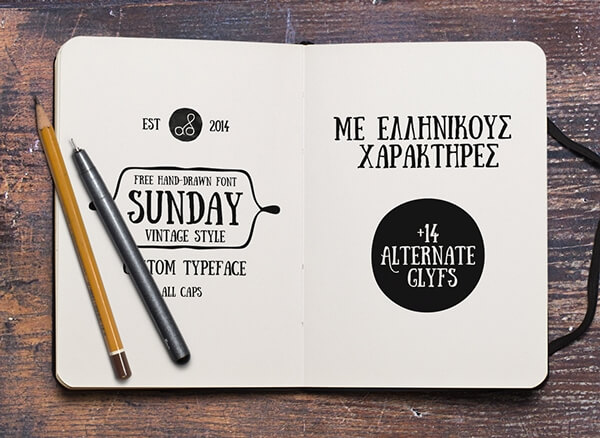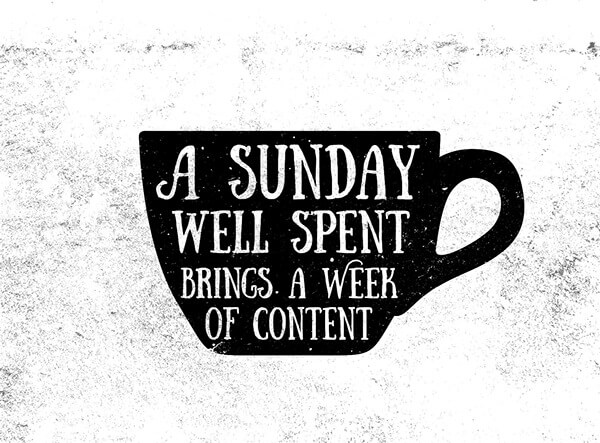
Sunday – Free Handwritten Font Posted on March 20, 2015 /Under Freebies, Typography Sunday is one more cool handwritten font ideal for vintage projects by: Anastasia Dimitriadi Download Resource Here Sunday – Free Handwritten Font Share this: Share on Facebook (Opens in new window) Facebook Share on Pinterest (Opens in new window) Pinterest Share on Threads (Opens in new window) Threads More Share on X (Opens in new window) X Share on LinkedIn (Opens in new window) LinkedIn Like this:Like Loading… Related